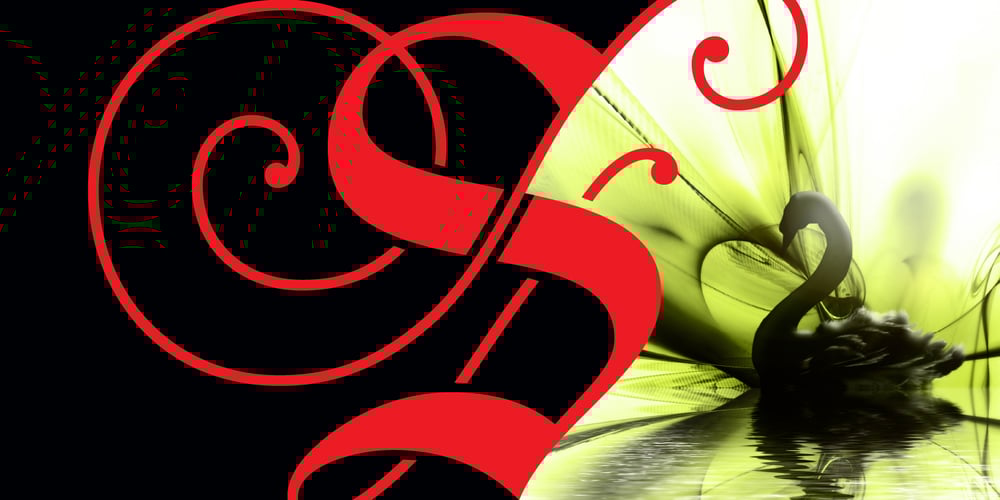
Black Swan BF
Black Swan BF font
Black Swan BF Font Family was designed by John Bomparte and published by Bomparte’s Fonts. Black Swan BF contains 3 styles and family package options. Beautiful and elegant, Black Swan BF lives equally in bliss as entrance signage for an exclusive housing subdivision, as it does on the cover of a hot new music CD. This font features elements of art nouveau and a ton load of alternate and ligature characters. They mix and match well to create unique word settings with a custom look. Black Swan displays best in initial cap/lowercase, or all lowercase, rather than all-cap arrangements.